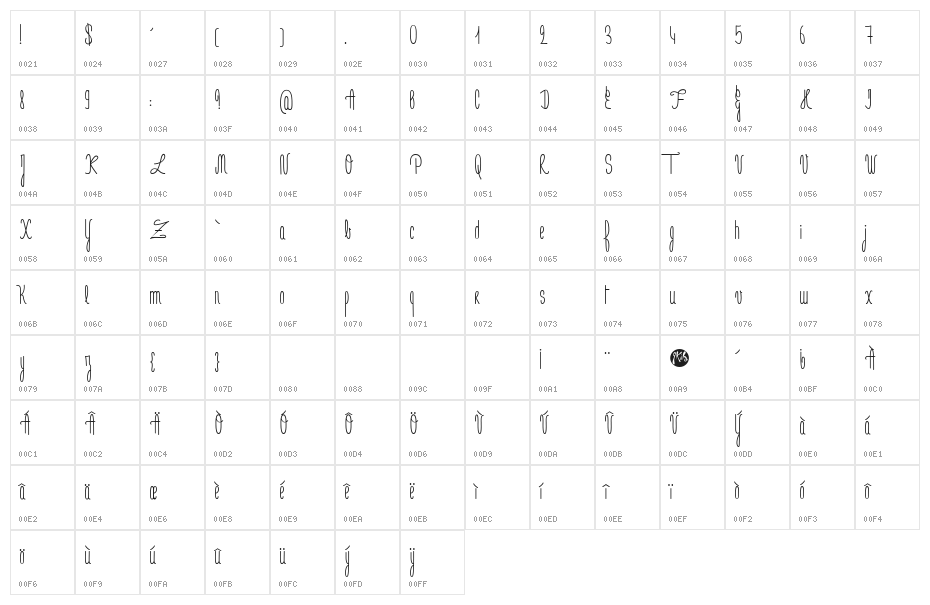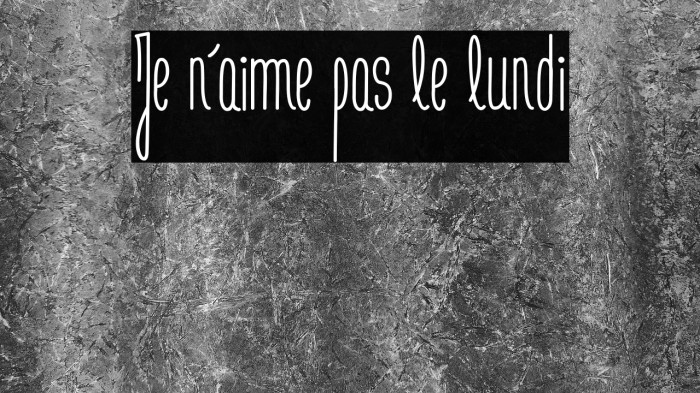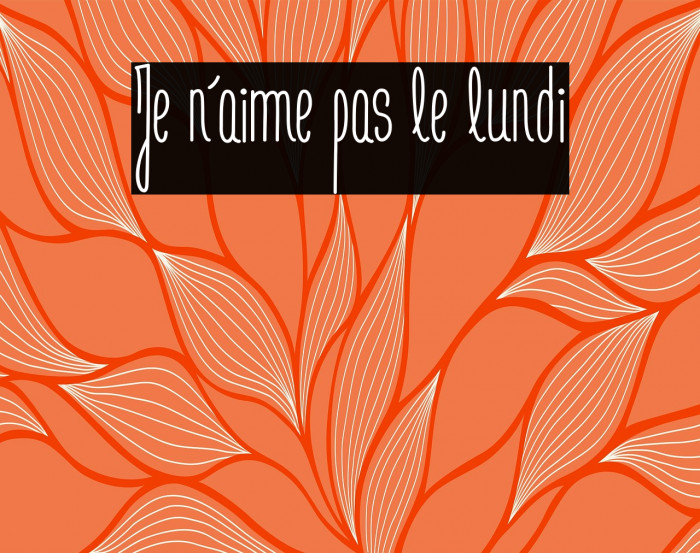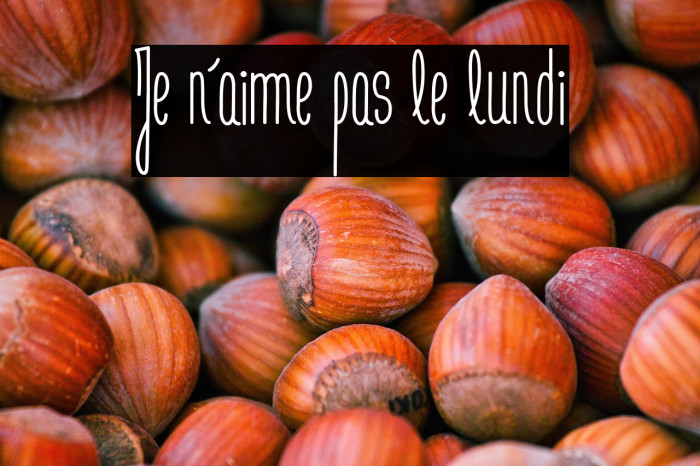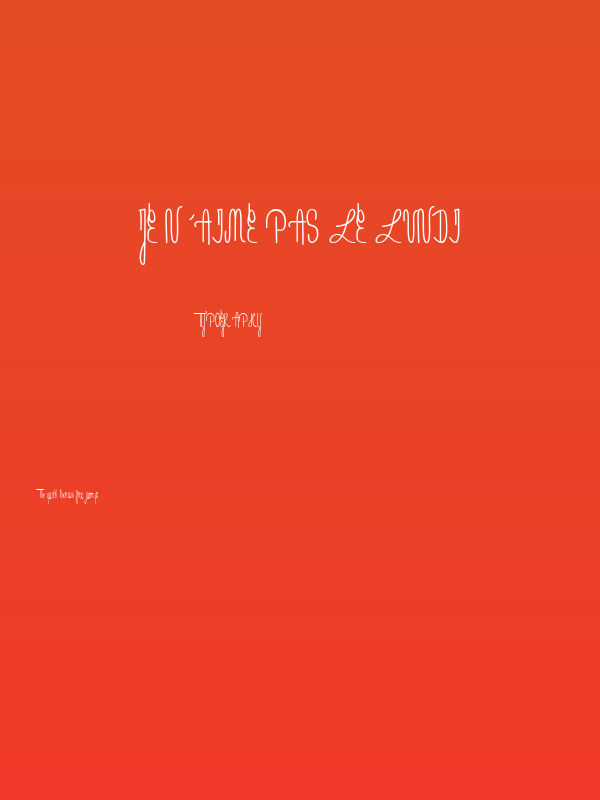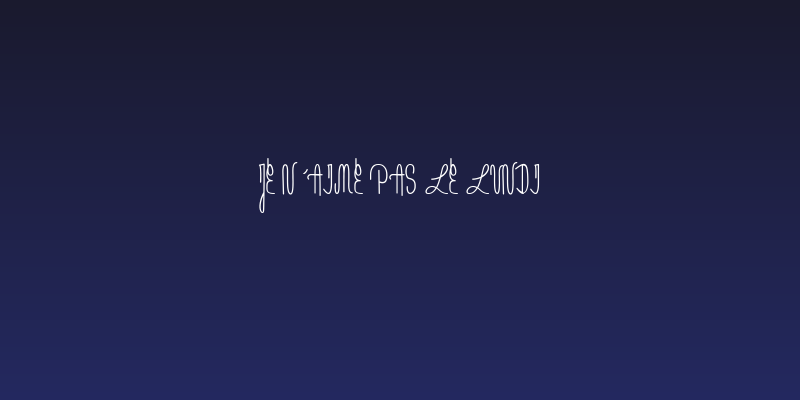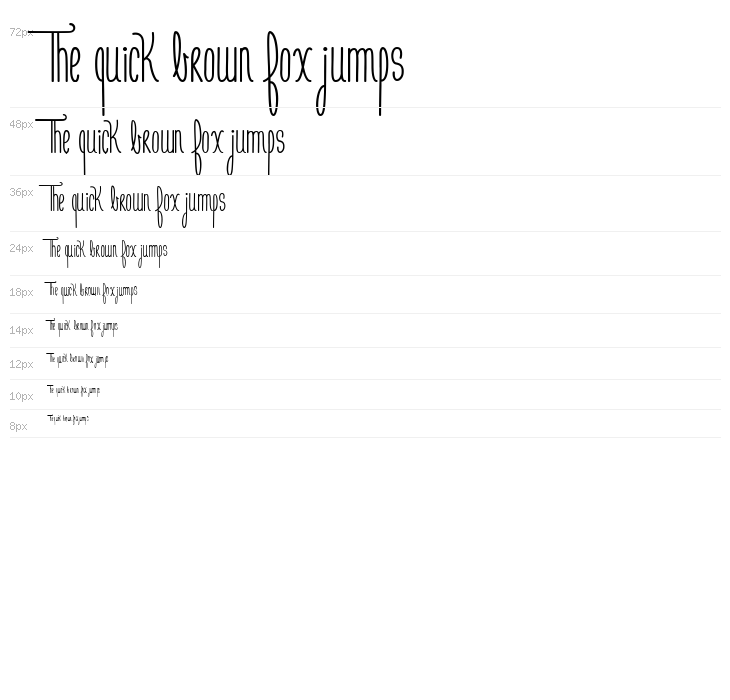
Je n'aime pas le lundi Font
Je n'aime pas le lundi Description
This font features an elegant and whimsical design, characterized by its tall, narrow letters with elongated ascenders and descenders. The strokes are thin and consistent, giving it a delicate and airy appearance. The uppercase letters have a unique flair, with some characters incorporating loops and curves that add a playful touch. The lowercase letters maintain a similar style, with a graceful flow that complements the uppercase set. Numbers and special characters are designed to match the overall aesthetic, ensuring a cohesive look across all text elements. This font's distinctive style makes it stand out, offering a blend of sophistication and creativity.
| Use Case | Headlines, Artistic projects, Invitations |
| Proposed Projects | Ideal for wedding invitations, greeting cards, artistic posters, and branding materials that require a touch of elegance and creativity. |